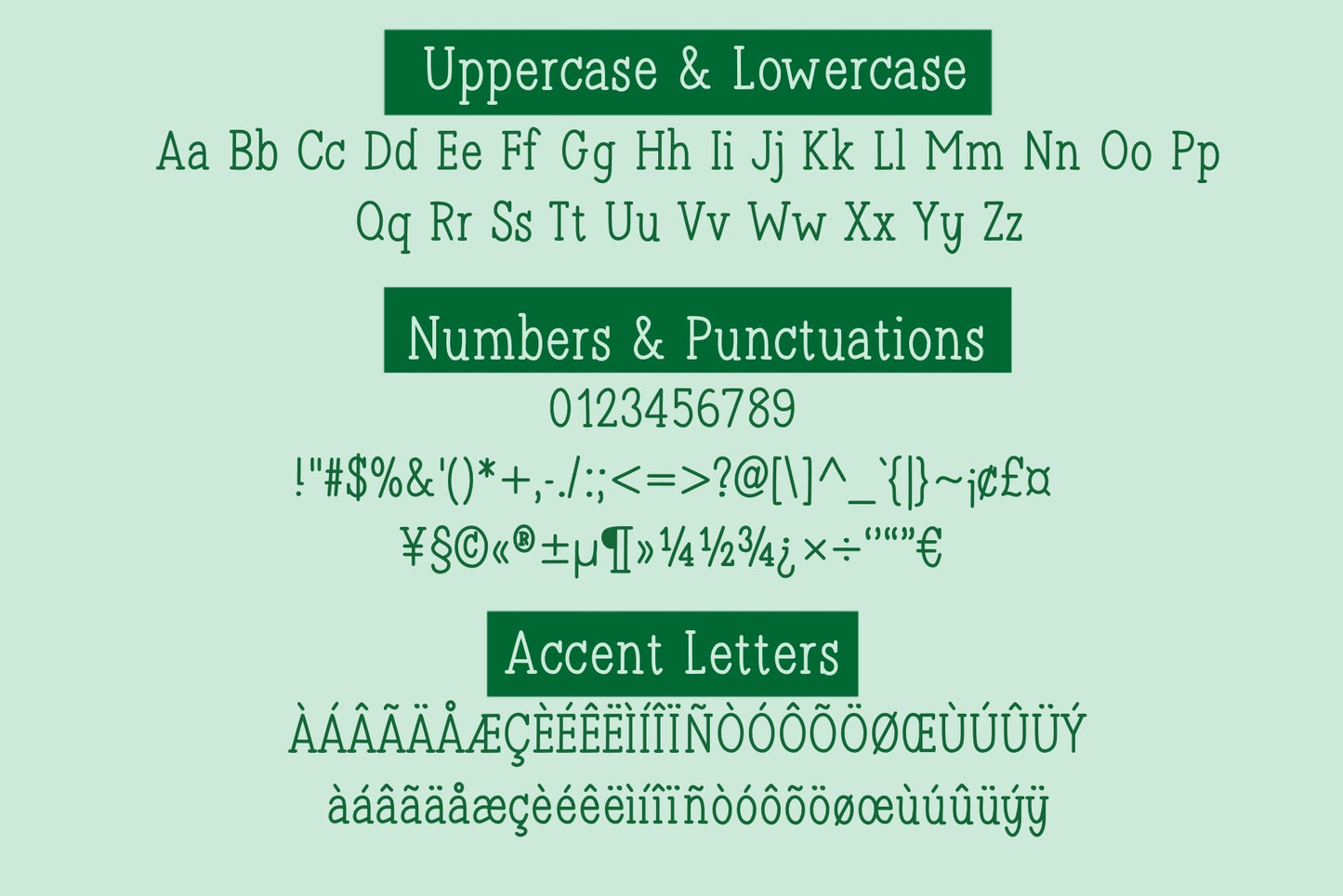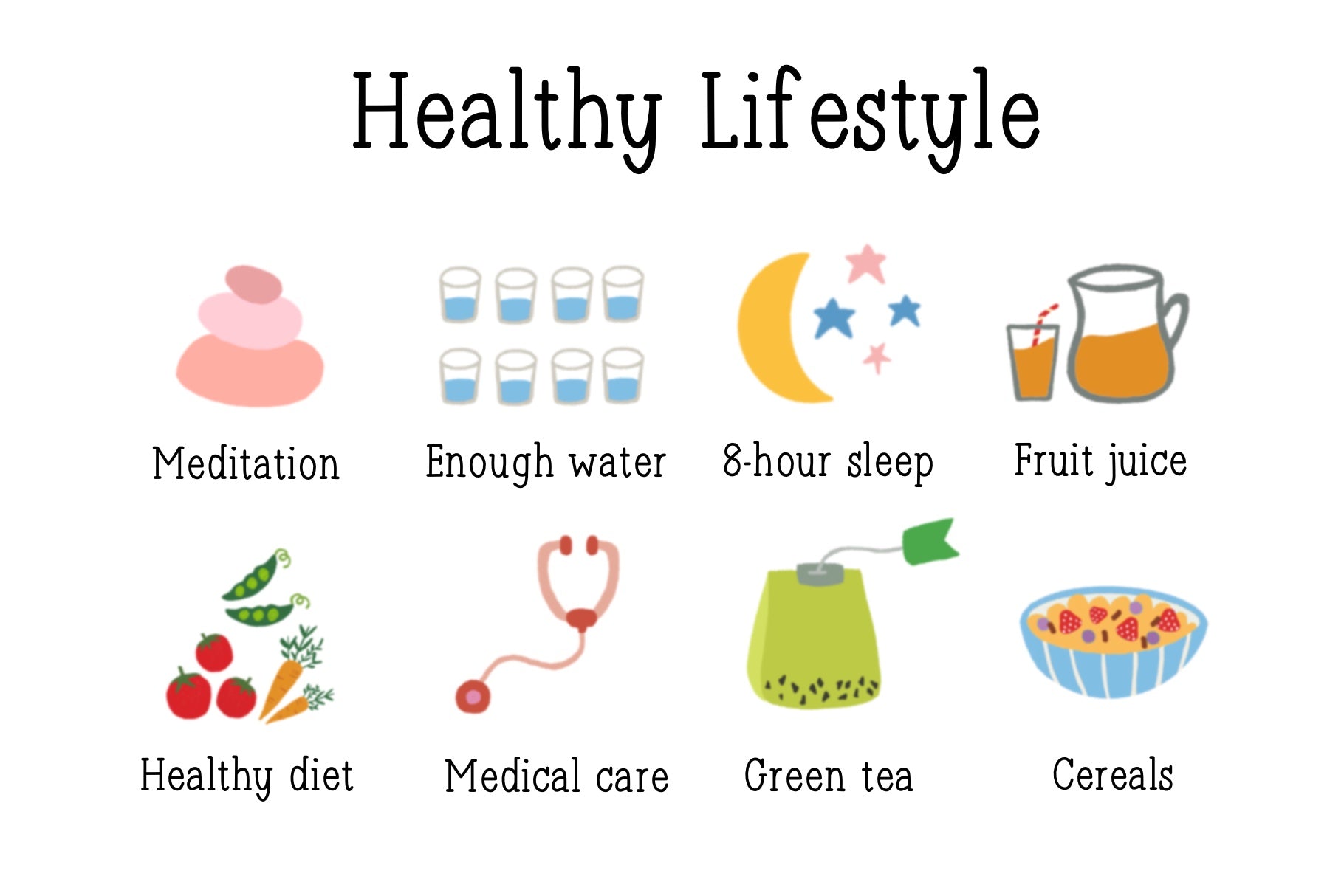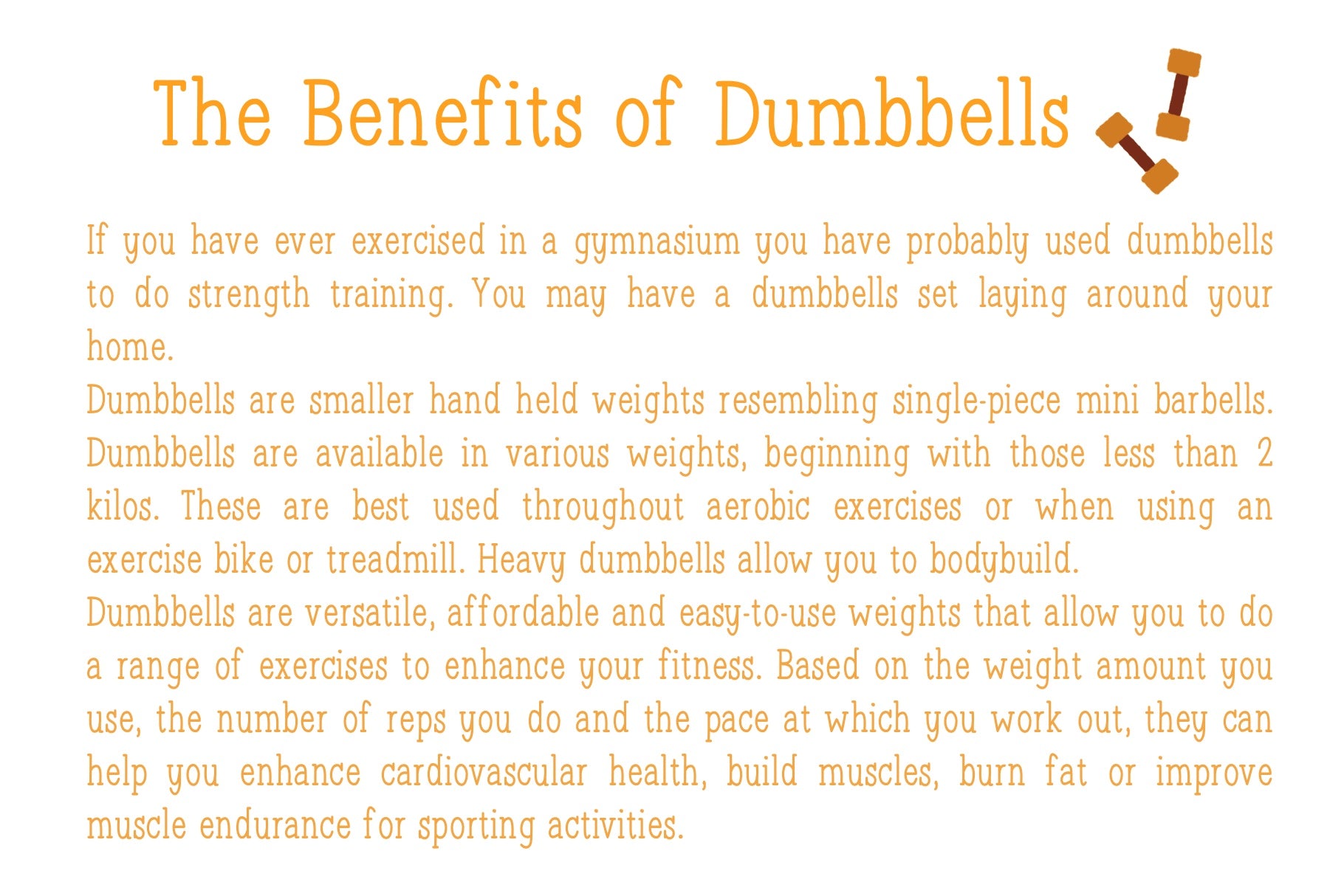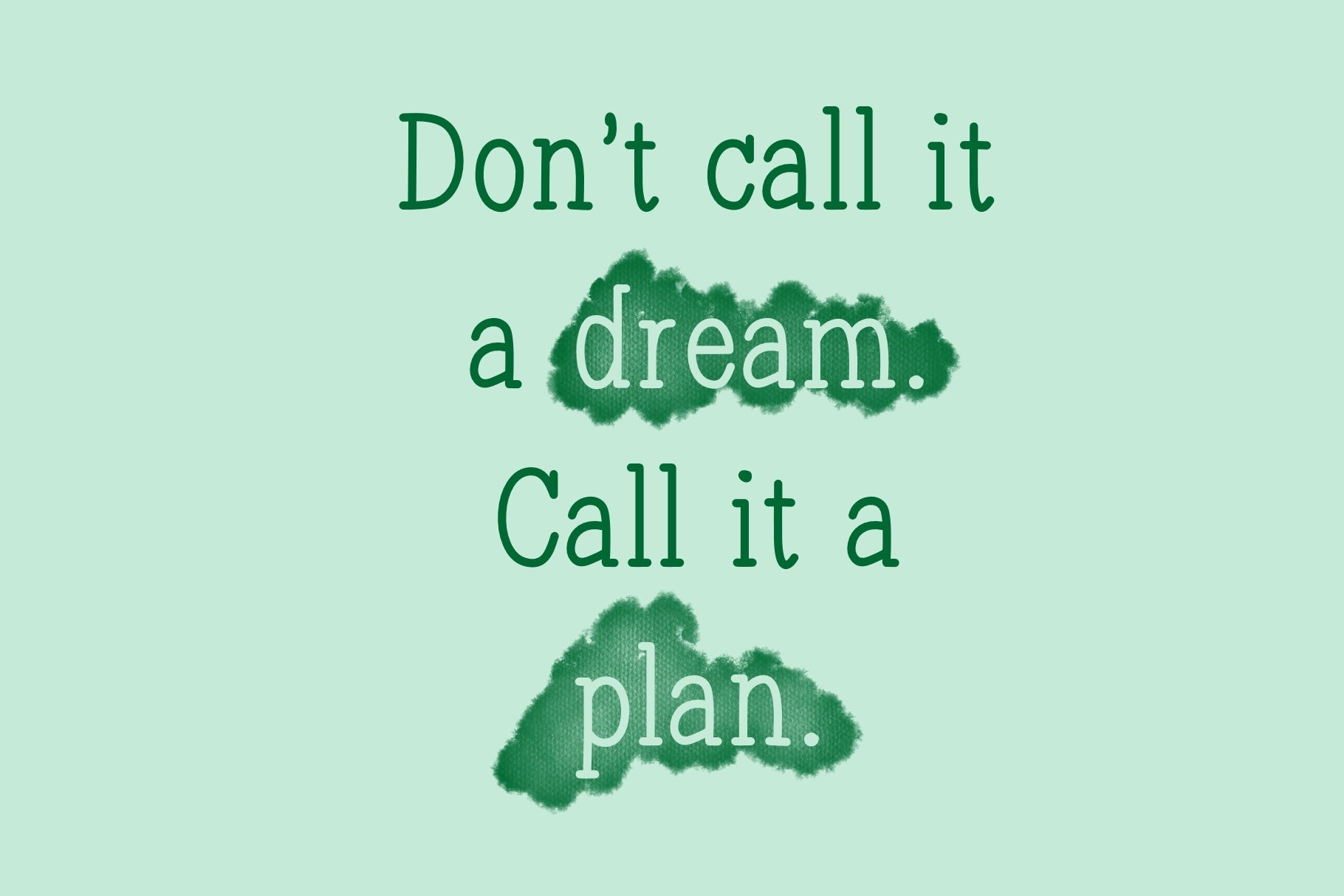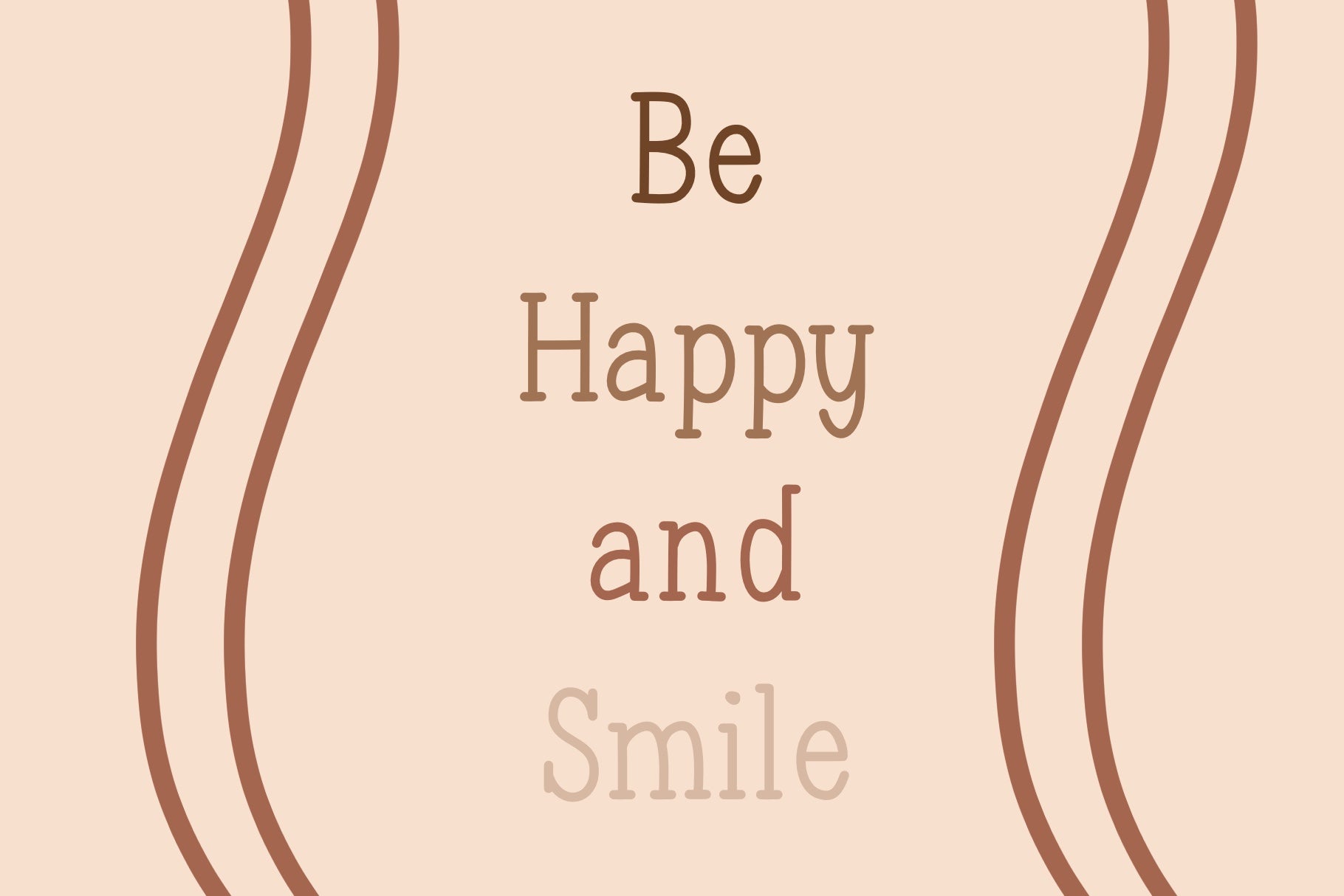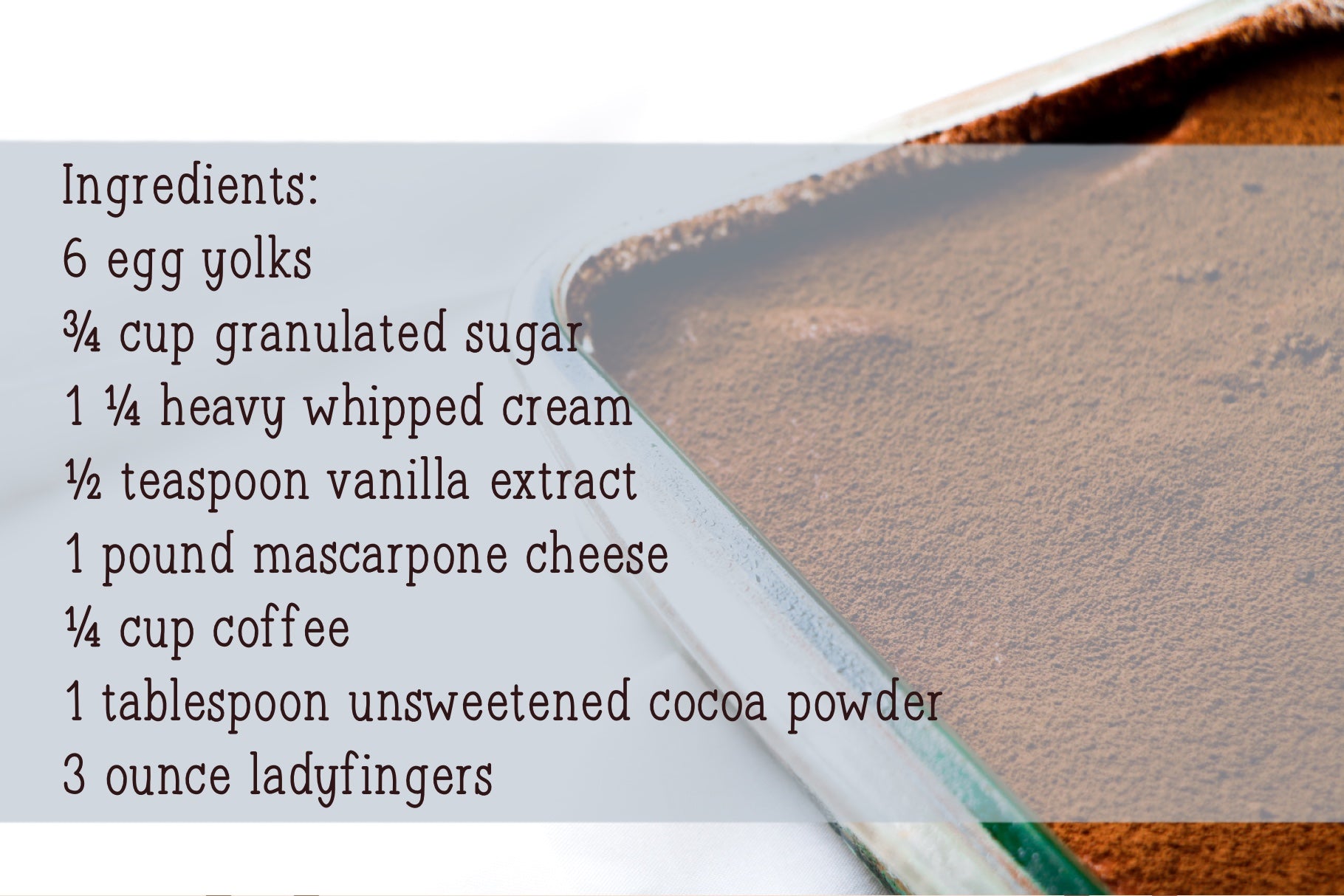
Handwritten Font - Little Notes
Little Notes is a neat and clean handwritten font by KJunStudio.
The font includes
• Uppercase Characters
• Lowercase Characters
• Numbers and Punctuations
• Accented characters (Multilingual Support)